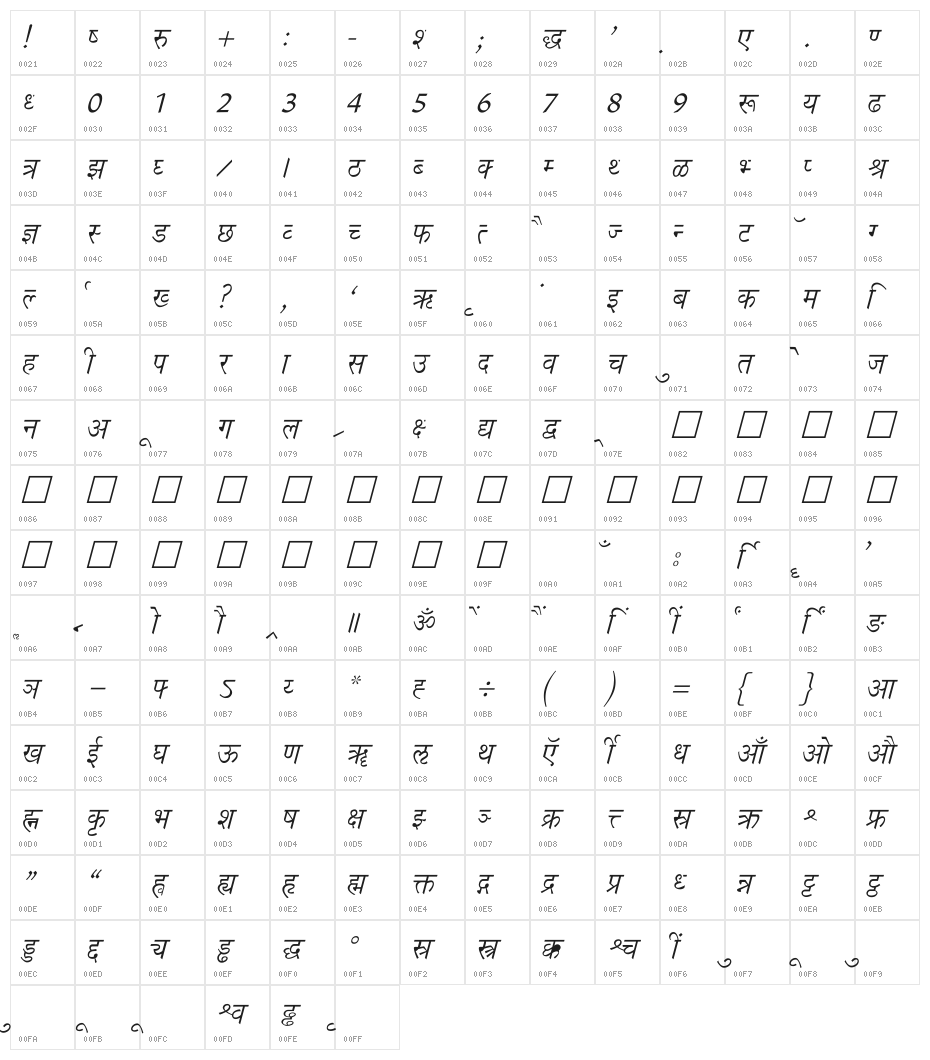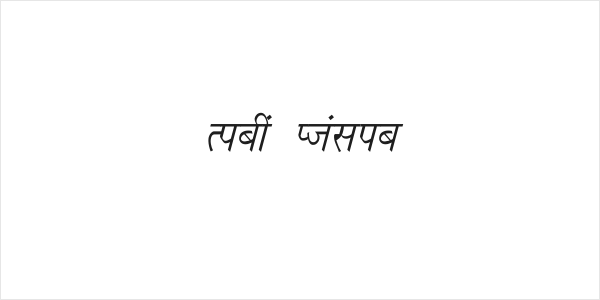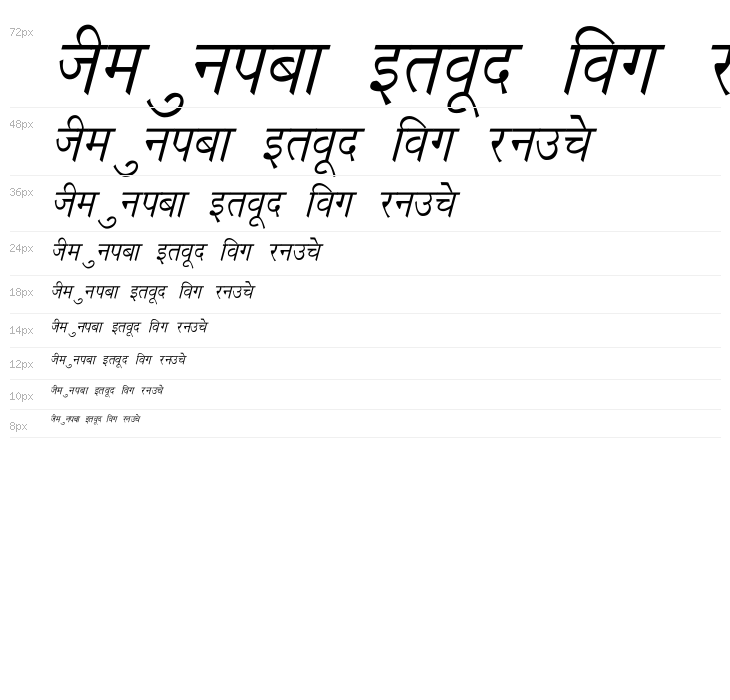
Richa Italic Font
Richa Italic Description
This font features a distinct italic style with a flowing and dynamic appearance. The characters are designed with a slight slant, enhancing the sense of motion and elegance. The strokes are moderately thick, providing a balanced contrast that ensures readability while maintaining a stylish flair. The font includes a comprehensive set of characters, including numerals and special symbols, making it versatile for various applications. Its design is influenced by traditional calligraphy, giving it a classic yet contemporary feel.
Overall StyleClassic
Use CaseHeadlines, Invitations, Formal documents
Proposed ProjectsIdeal for projects that require a touch of elegance and sophistication, such as invitations, greeting cards, and formal documents.